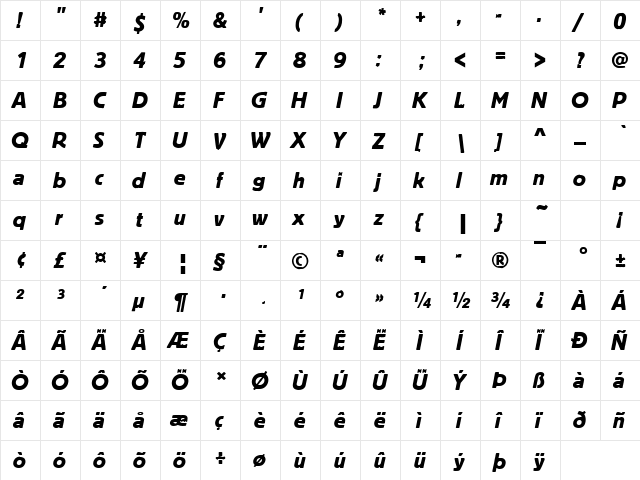
BlockTReg Italic
Design Context for BlockTReg Typeface
BlockTReg takes a measured approach to typography — its balanced proportions and neutral character make it a reliable workhorse for both digital and print work. The dynamic lean of this cut emphasises speed and emphasis in any layout.
Pro Tip: Try BlockTReg for annotation and caption copy alongside an upright companion — the contrast in angle creates a dynamic but ordered typographic system.